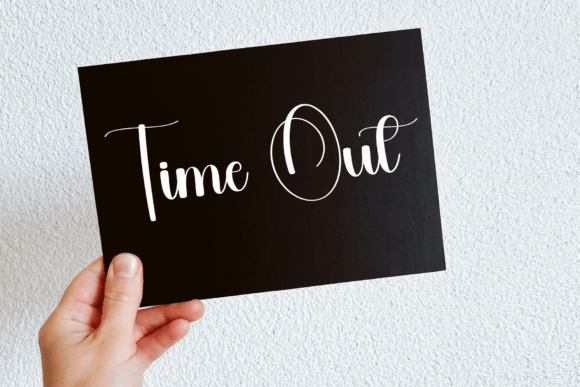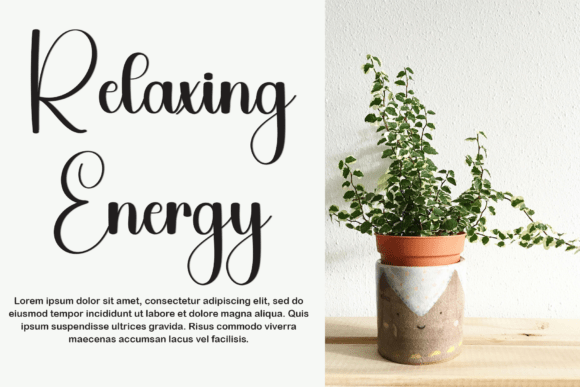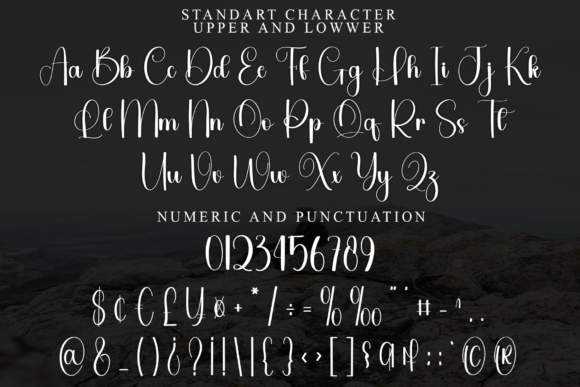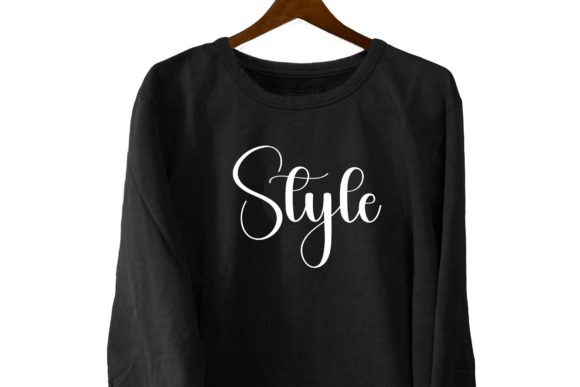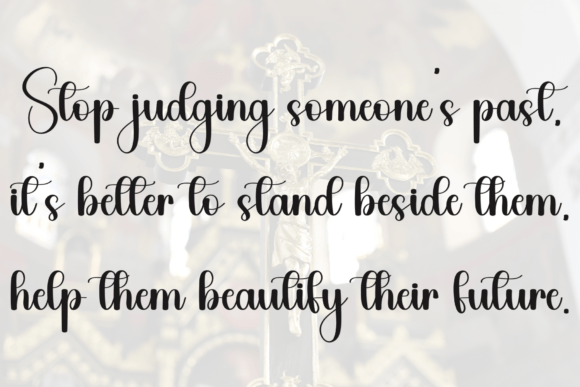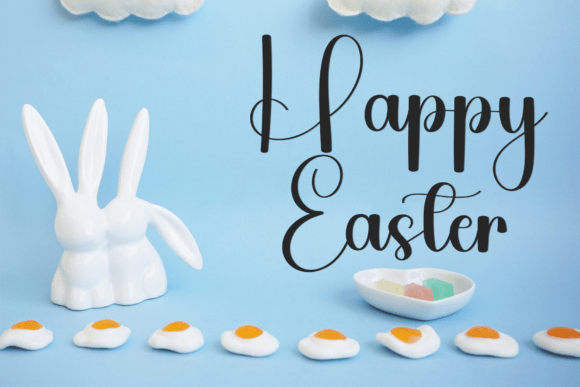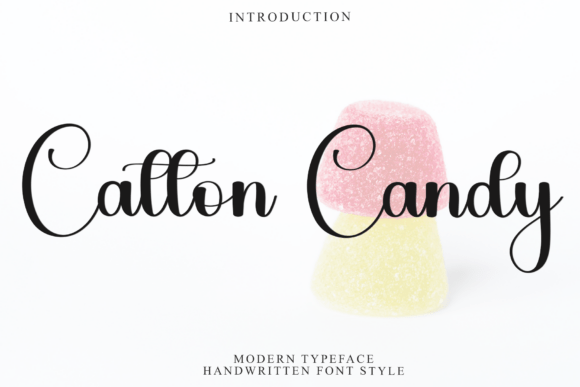
Introducing Catton Candy Font: A Festive and Merry Typeface for the Holiday Season
Are you looking for a font that captures the magic and wonder of the holiday season? Look no further than Catton Candy Font, a festive and merry typeface that adds a touch of enchantment to your designs. With its decorative elements and whimsical flair, this font is perfect for greeting cards, gift tags, and holiday-themed projects.
A Font that Embodies the Spirit of the Holidays
Catton Candy Font is a carefully crafted typeface that embodies the spirit of the holiday season. Its decorative elements and whimsical flair evoke a sense of nostalgia and cheer, making it perfect for designers and crafters who want to add a touch of magic to their work. Whether you’re creating holiday greeting cards, gift tags, or festive decorations, this font is sure to bring a smile to your face and a twinkle to your designs.
Catton Candy Font is a versatile typeface that is perfect for designers and crafters of all levels. Its ease of use and flexibility make it an ideal choice for a wide range of projects, from professional designs to DIY crafts. With this font, you can create stunning holiday-themed projects that are sure to impress your friends, family, and clients.
One of the best features of Catton Candy Font is that it is PUA encoded, which means you can access all of the amazing glyphs and ligatures with ease. This makes it easy to use the font in your designs, even if you’re not a professional typographer. With PUA encoding, you can simply copy and paste the glyphs and ligatures into your design software, making it easy to add a touch of magic to your work.
• Festive and Merry: Catton Candy Font is a festive and merry typeface that captures the spirit of the holiday season.
• Decorative Elements: The font features decorative elements and whimsical flair, adding a touch of enchantment to your designs.
• Perfect for Holiday Projects: Catton Candy Font is perfect for greeting cards, gift tags, and holiday-themed projects.
• PUA Encoded: The font is PUA encoded, making it easy to access all of the amazing glyphs and ligatures.
• Easy to Use: The font is easy to use, even for designers and crafters who are new to typography.
Tips and Inspiration for Using Catton Candy Font
Here are a few tips and inspiration ideas for using Catton Candy Font in your designs:
• Holiday Greeting Cards: Use Catton Candy Font to create stunning holiday greeting cards that are sure to impress your friends and family.
• Gift Tags: Add a touch of magic to your gift tags with Catton Candy Font, making them perfect for presents and packages.
• Festive Decorations: Use the font to create festive decorations, such as holiday banners and signs.
• Social Media Graphics: Add a touch of holiday cheer to your social media graphics with Catton Candy Font.
In conclusion, Catton Candy Font is a festive and merry typeface that captures the spirit of the holiday season. With its decorative elements and whimsical flair, it adds a touch of enchantment to your designs. Perfect for greeting cards, gift tags, and holiday-themed projects, this font brings a cheerful and nostalgic ambiance to your words. Let your typography shine with the magic of Beautiful Font!